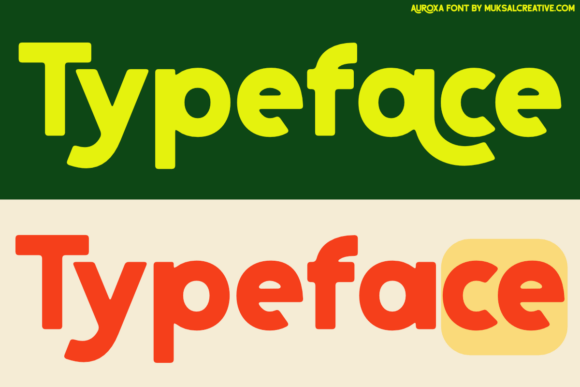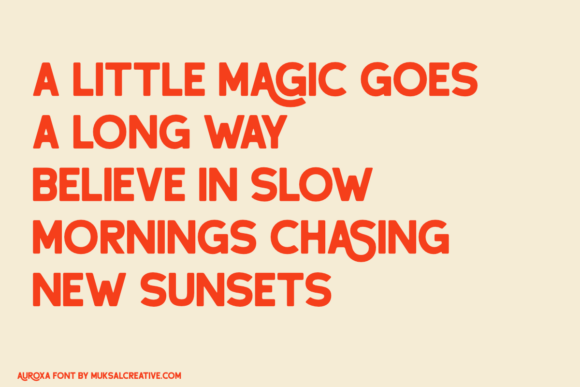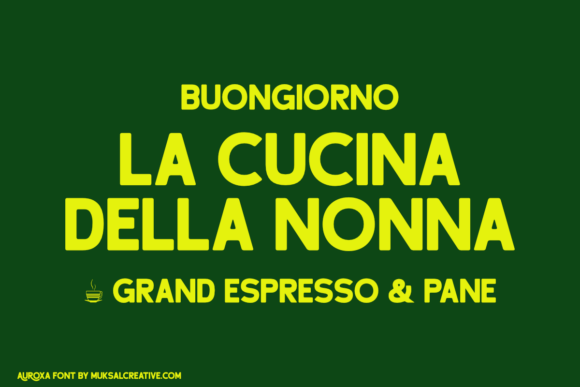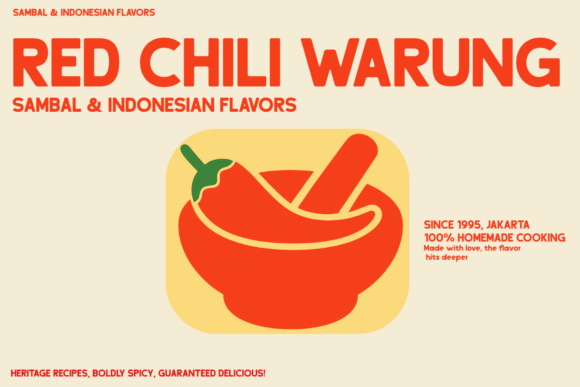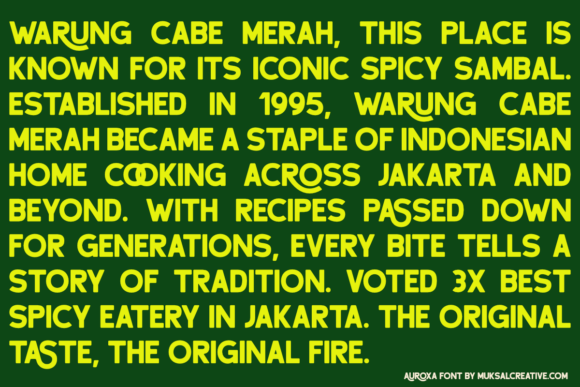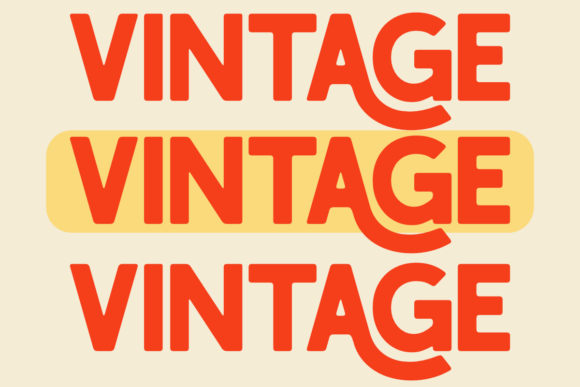
Auroxa Font: A Bold Retro-Modern Display Font for Impactful Branding
In the world of typography, fonts play a crucial role in conveying the tone and personality of a brand. For designers and crafters looking for a font that exudes confidence, character, and a touch of nostalgia, Auroxa Font is an excellent choice. This bold retro-modern display font seamlessly merges vintage aesthetics with contemporary charm, making it perfect for branding that seeks to make a lasting impact.
Inspired by Timeless Typography
Auroxa Font draws inspiration from vintage signage, classic product packaging, and timeless typography from the mid-20th century. Its confident curves, unique ligatures, and stylized forms evoke a sense of nostalgia while maintaining a strong, modern voice. This font is ideal for use in various design projects, including fashion labels, café menus, retro posters, editorial titles, product packaging, and creative logos.
Key Features of Auroxa Font
Auroxa Font boasts several features that make it a versatile and distinctive font for designers and crafters. Some of its key features include:
- Multilingual Support: Auroxa Font offers multilingual support, making it suitable for use in various languages and regions.
- Custom Ligatures: The font features custom ligatures that add a touch of elegance and sophistication to any design.
- Stylistic Alternates: Auroxa Font includes stylistic alternates that allow designers to experiment with different styles and create a unique look.
Perfect for Branding and Design Projects
Auroxa Font is perfect for designers and crafters looking to add a touch of character and impact to their branding and design projects. Its bold and confident curves make it suitable for use in:
- Fashion Labels: Auroxa Font is ideal for fashion labels looking to create a statement piece that exudes confidence and style.
- Café Menus: The font’s retro-modern aesthetic makes it perfect for café menus that want to evoke a sense of nostalgia and warmth.
- Retro Posters: Auroxa Font is well-suited for retro posters that require a bold and eye-catching font.
- Editorial Titles: The font’s unique ligatures and stylized forms make it suitable for use in editorial titles that require a touch of elegance and sophistication.
- Product Packaging: Auroxa Font is perfect for product packaging that requires a font that exudes confidence and character.
- Creative Logos: The font’s bold and modern voice makes it ideal for creative logos that require a font that stands out.
Why Choose Auroxa Font?
Auroxa Font offers a unique combination of vintage aesthetics and contemporary charm, making it an excellent choice for designers and crafters looking for a font that exudes character and impact. Here are some reasons why you should choose Auroxa Font:
- Unique and Distinctive: Auroxa Font offers a unique and distinctive look that sets it apart from other fonts.
- Versatile: The font’s multilingual support, custom ligatures, and stylistic alternates make it a versatile font for various design projects.
- High-Quality Design: The font is designed with high-quality craftsmanship, ensuring that it looks great in any design project.
| Author | Muksal Creative |
In conclusion, Auroxa Font is a bold retro-modern display font that offers a unique combination of vintage aesthetics and contemporary charm. Its confident curves, unique ligatures, and stylized forms make it perfect for branding that seeks character and impact. With its multilingual support, custom ligatures, and stylistic alternates, Auroxa Font is an excellent choice for designers and crafters looking for a font that exudes confidence, character, and a touch of nostalgia.